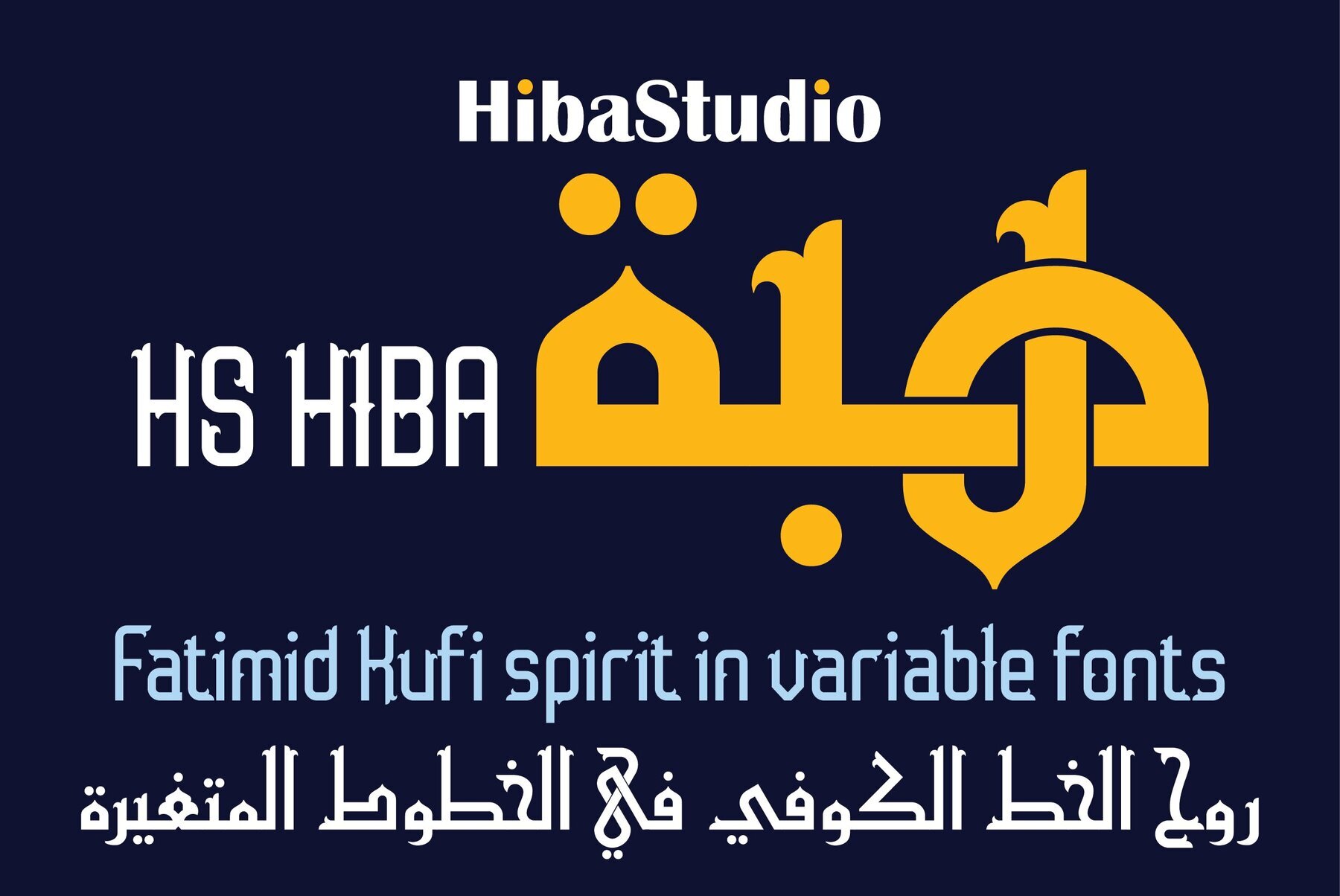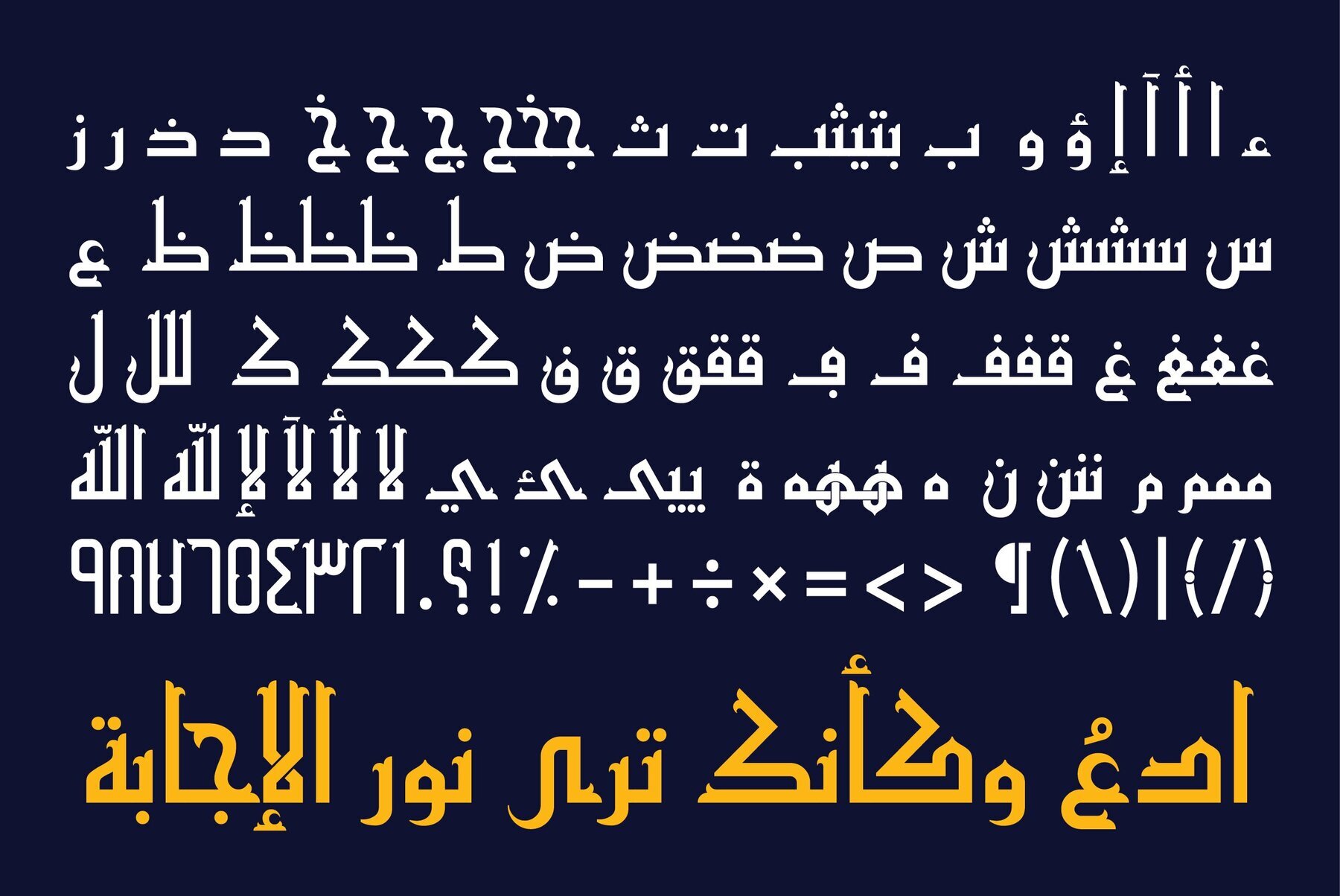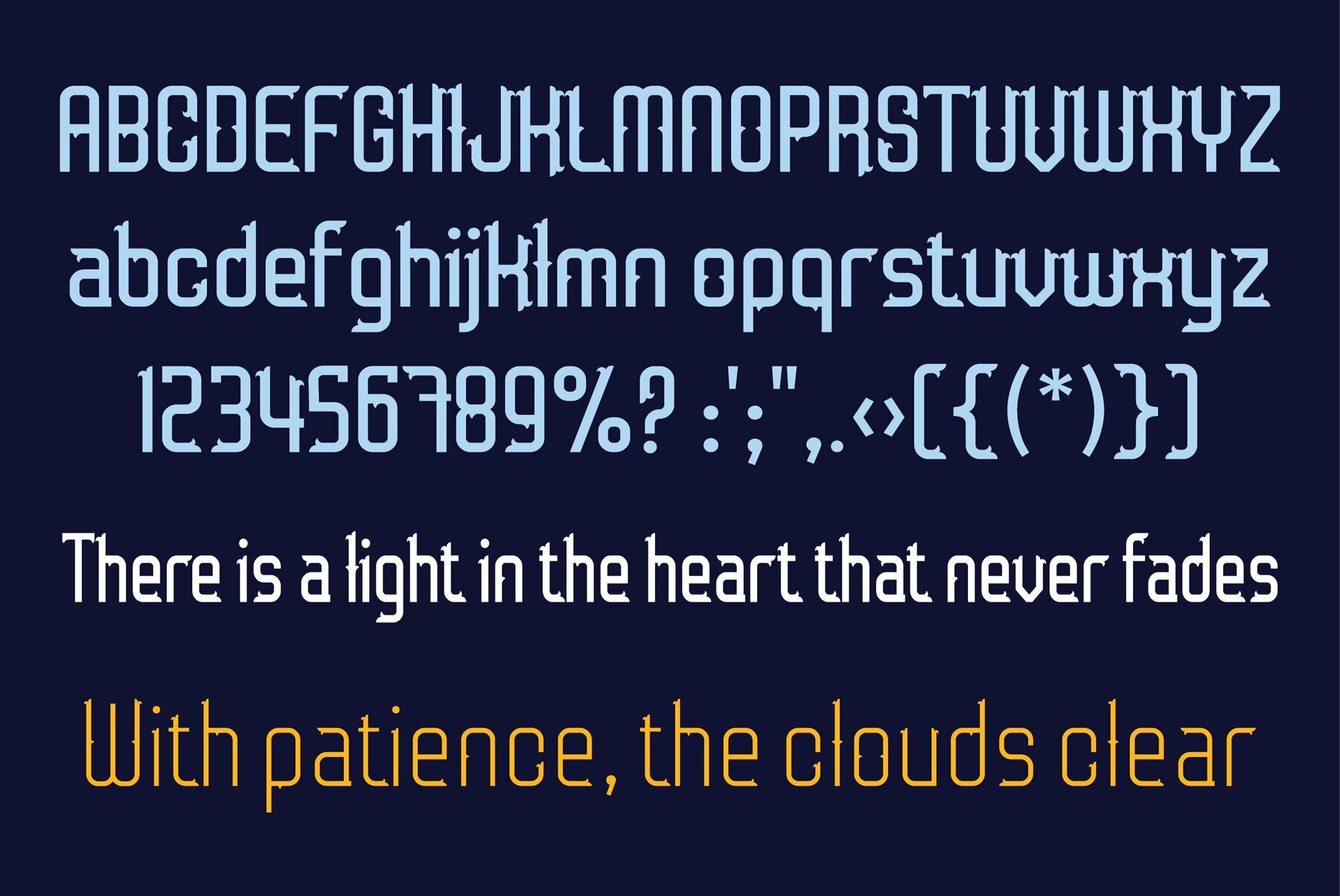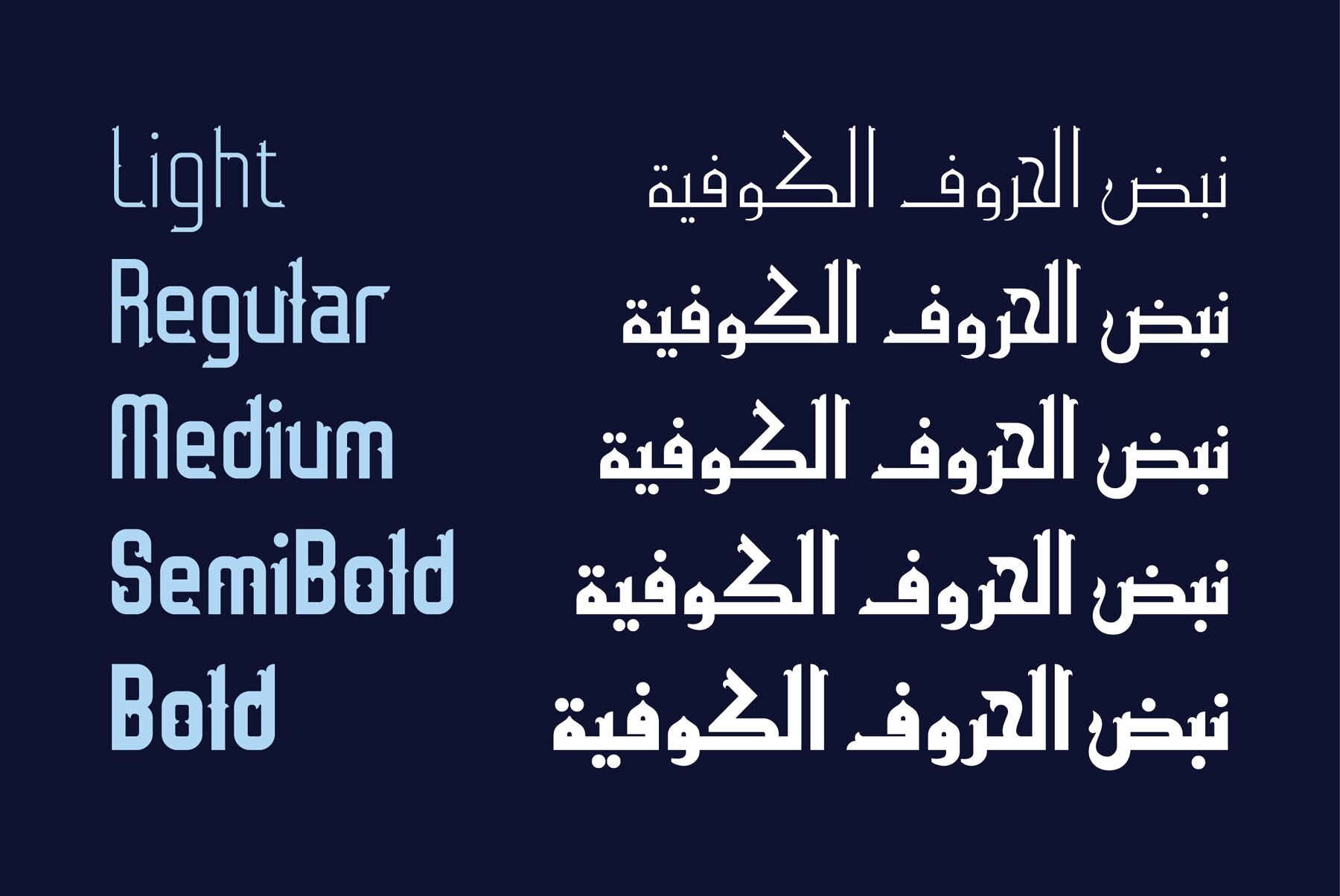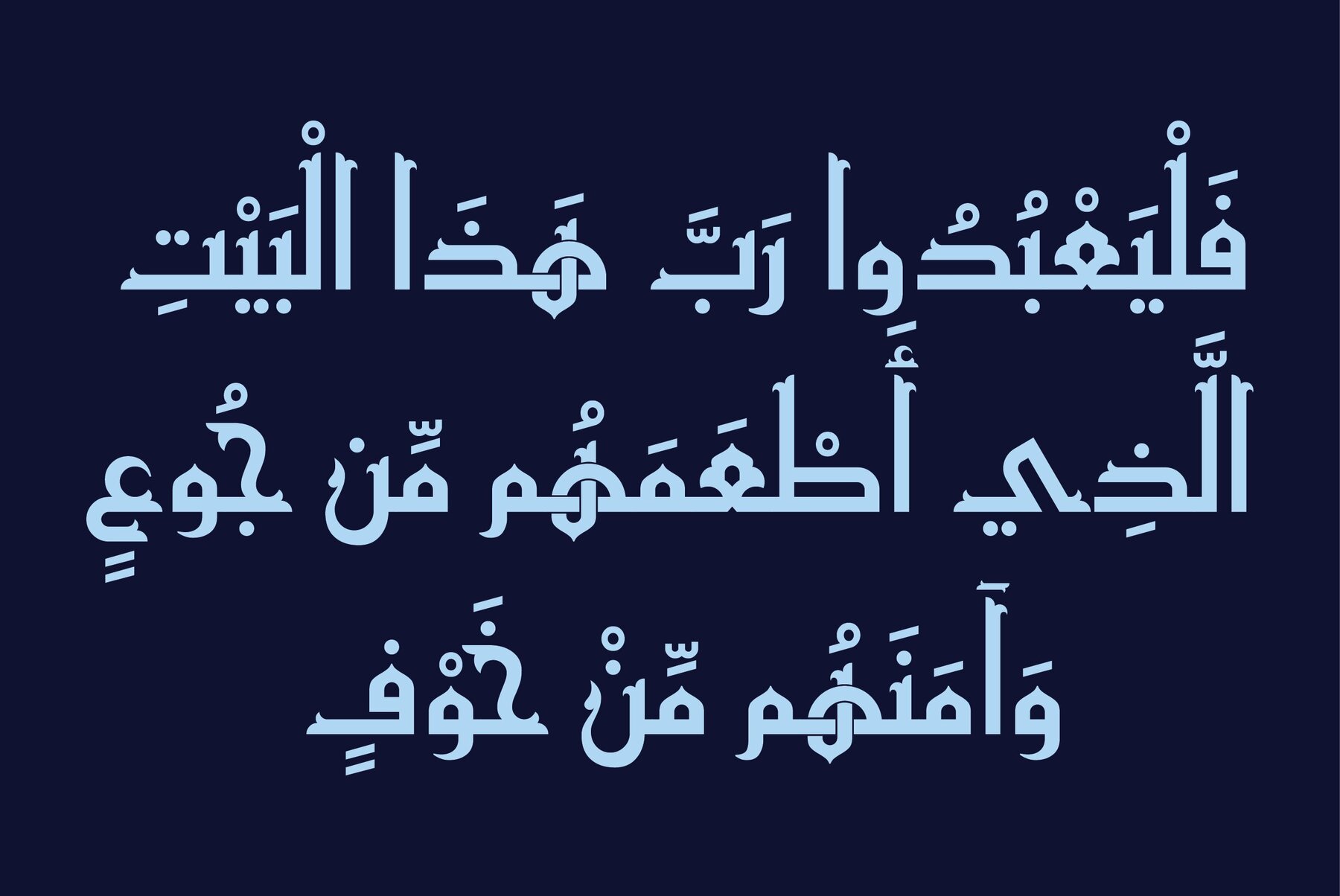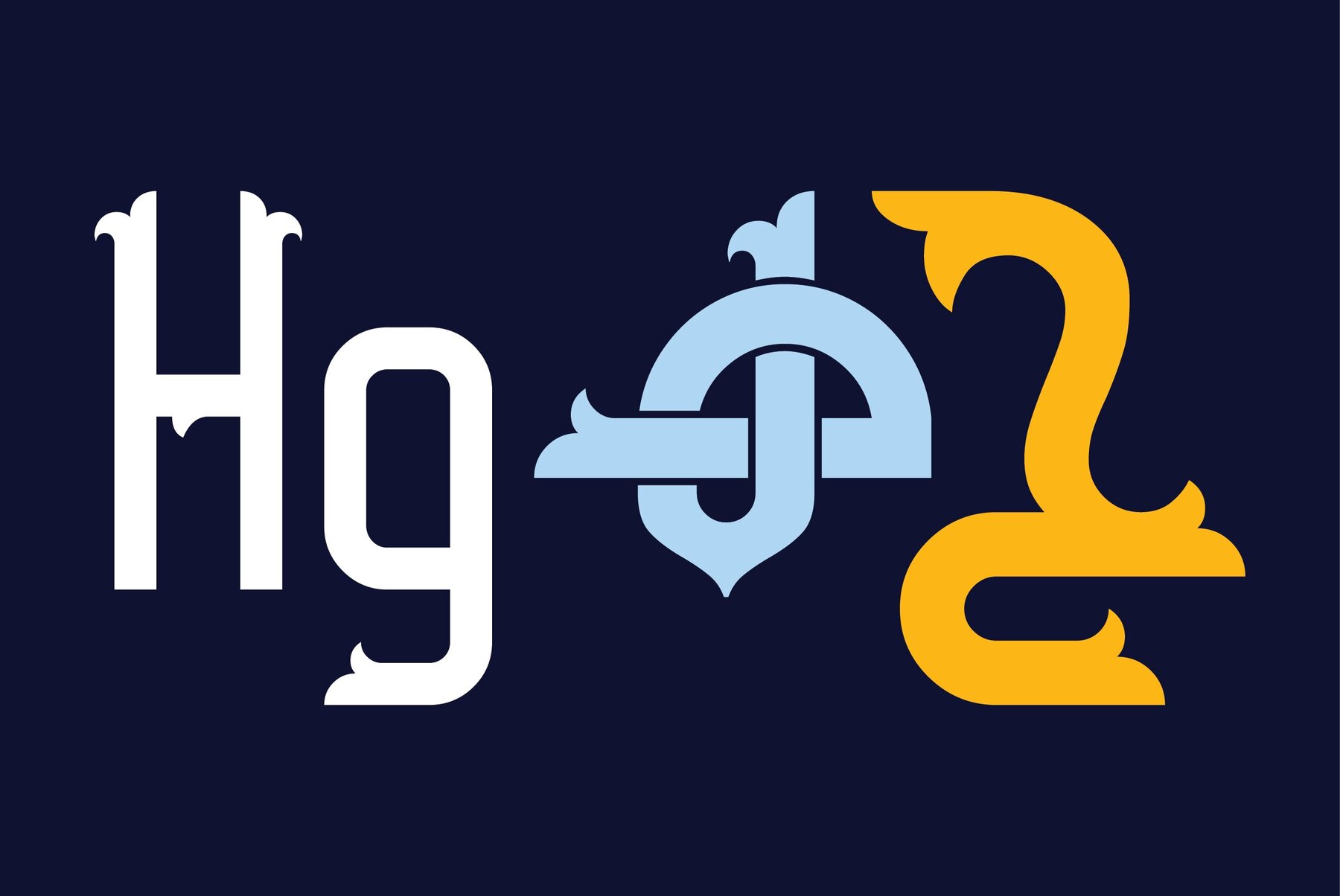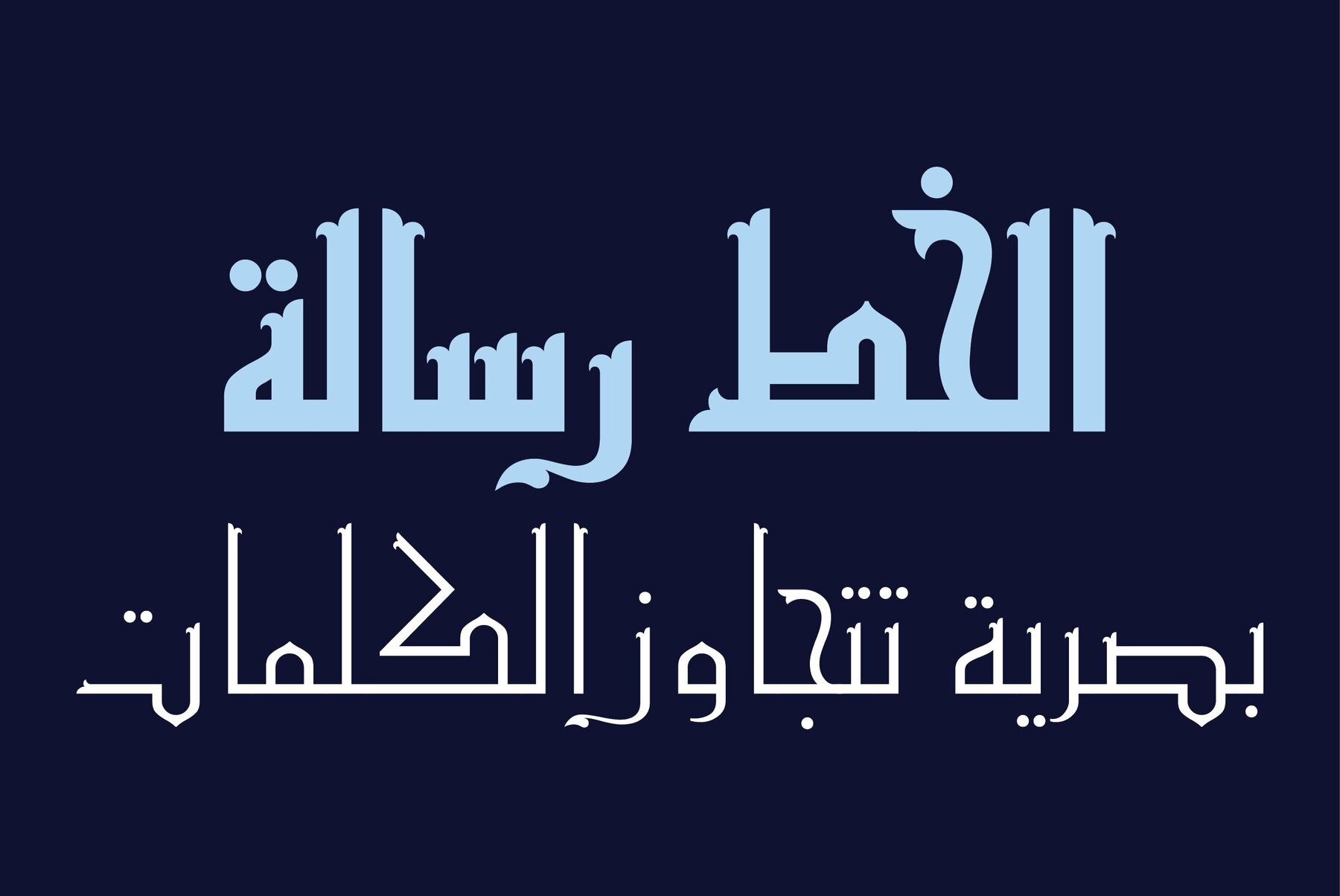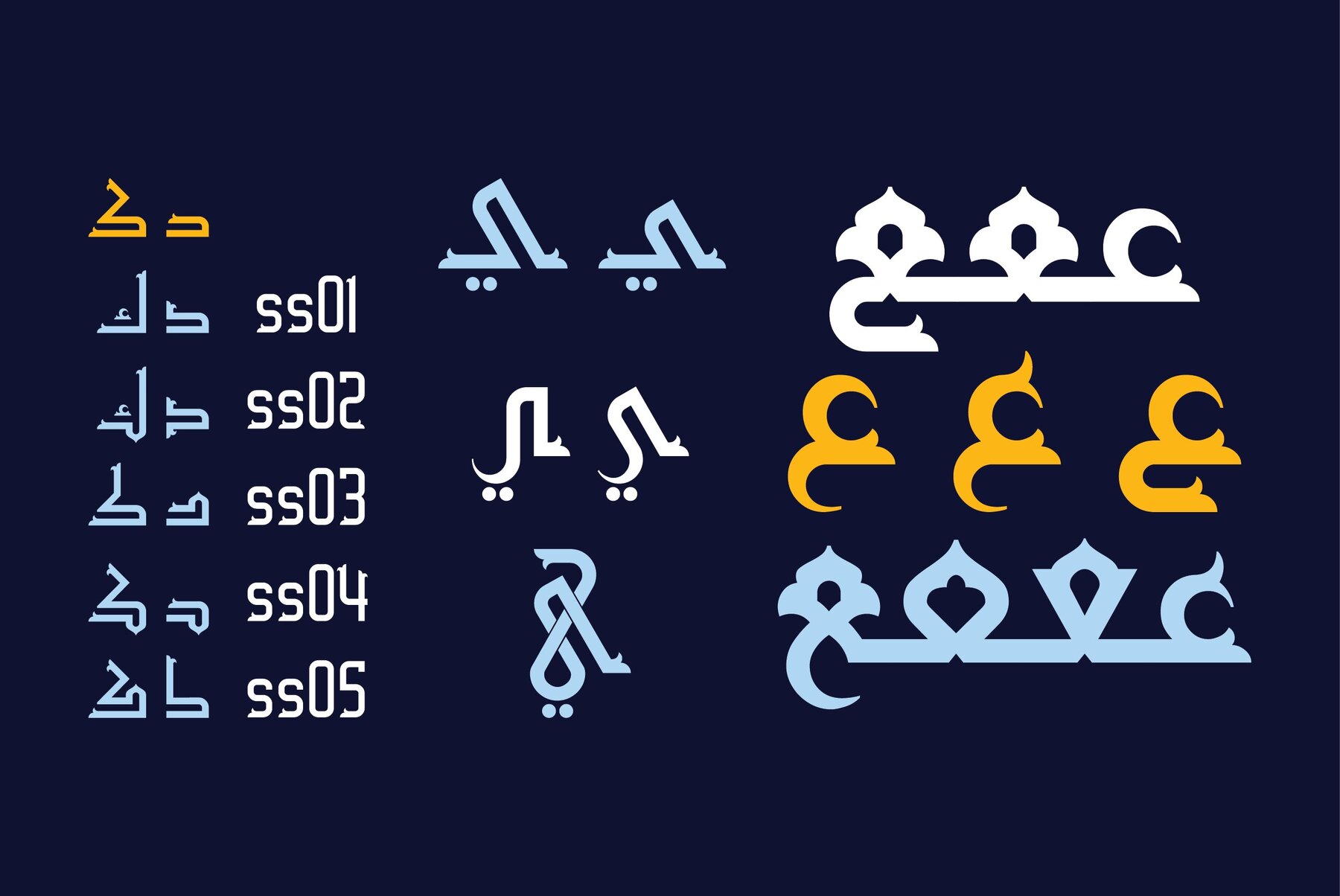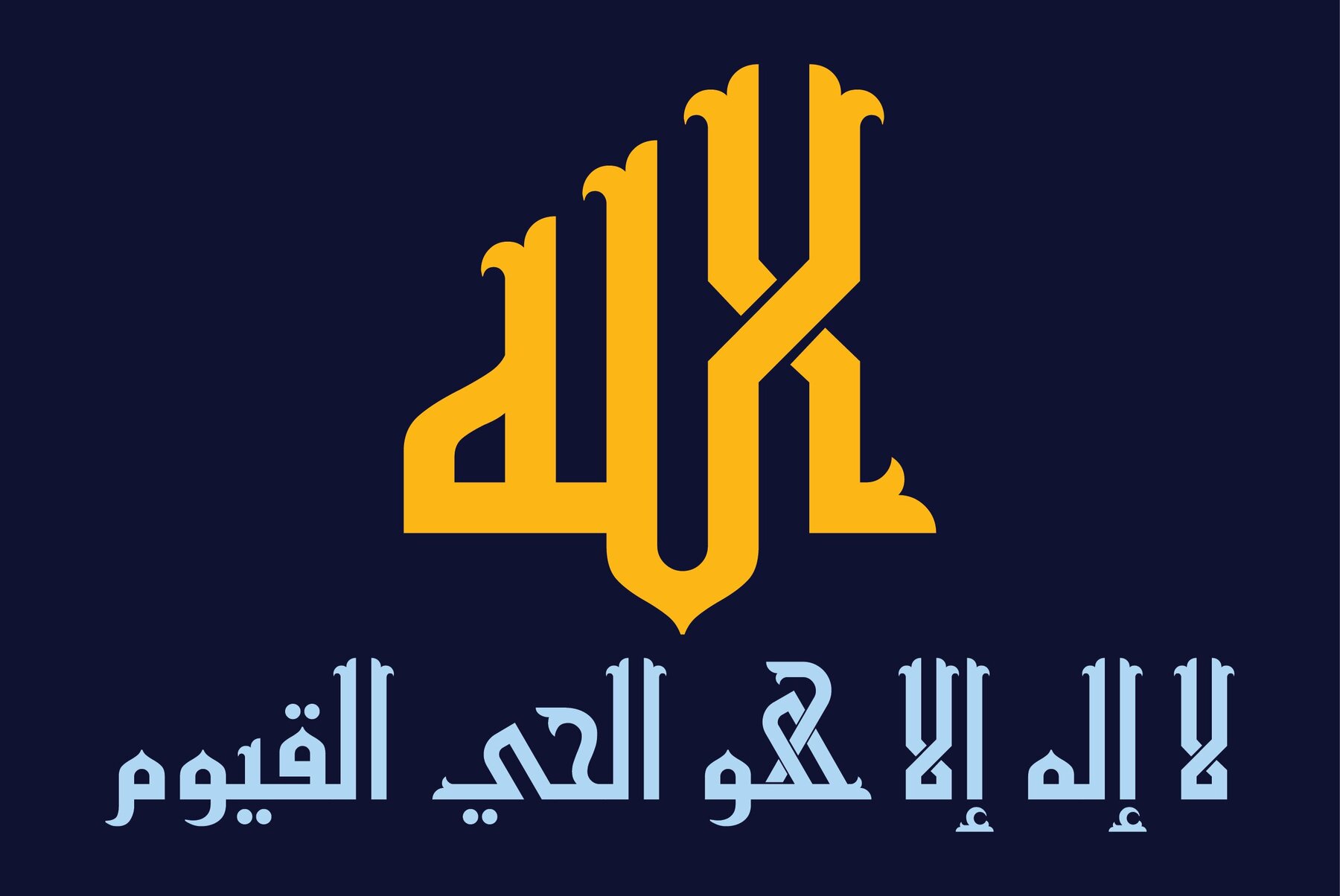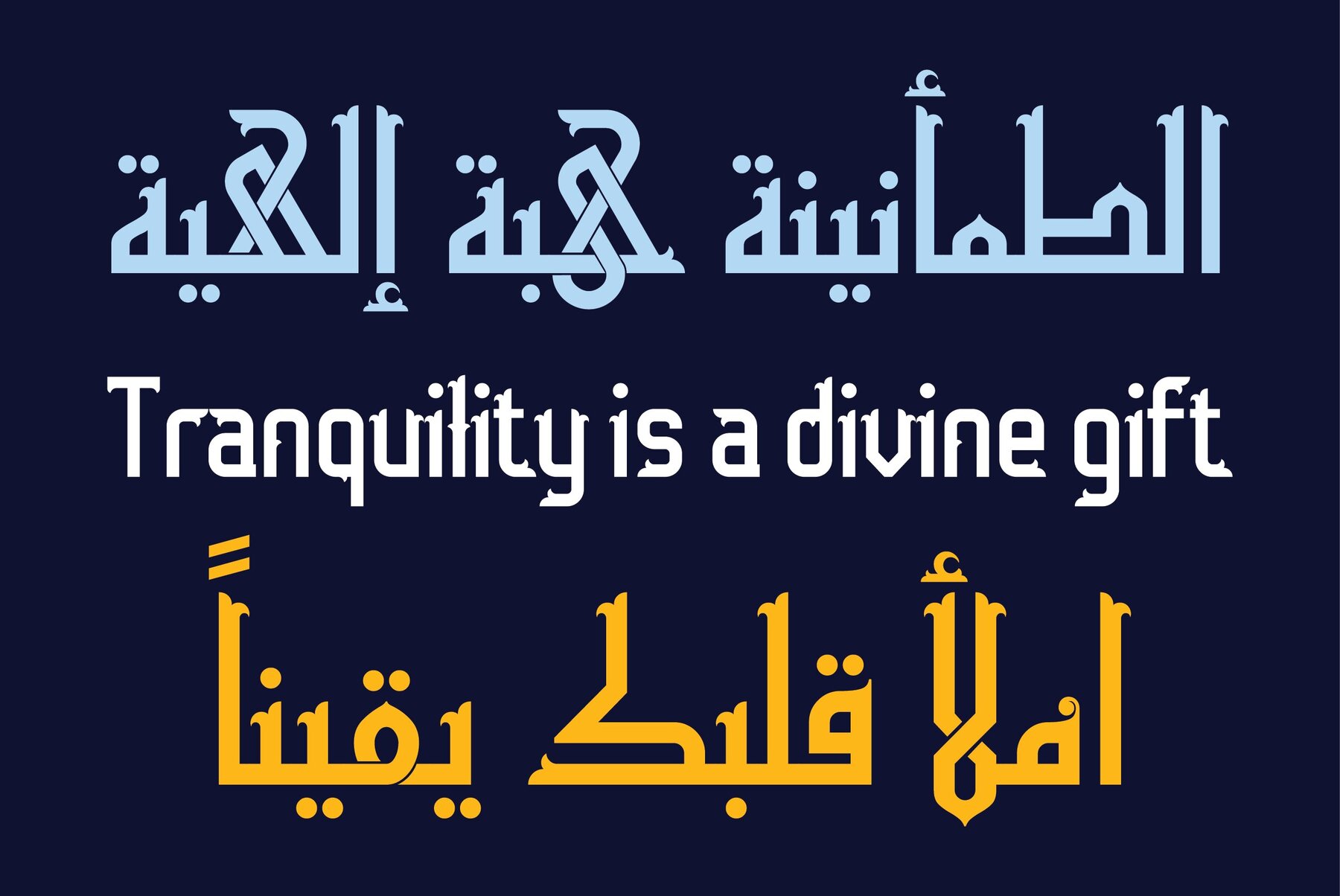
HS Hiba Font
HS Hiba is an Arabic typeface that reinterprets the essence of Fatimid Kufi through a modern lens. Its design marries historical charm with geometric precision, offering a typographic presence that remains timeless and contemporary. The typeface provides five static weights from Light to Bold, along with a Variable Font version unifying them under one weight axis. It supports both Arabic and English scripts, ensuring comprehensive diacritic coverage. With features like stylistic sets, contextual alternates, ligatures, positional forms, and kerning, HS Hiba adapts effortlessly to varied design needs. HS Hiba is compatible with professional design software, including Adobe, Corel, and Affinity applications. Its versatility makes it ideal for branding, editorial layouts, book and magazine covers, cultural or heritage projects, and digital interfaces. This typeface offers creative latitude while honoring traditional roots.HS Hiba: Tradition Meets Modern Geometry